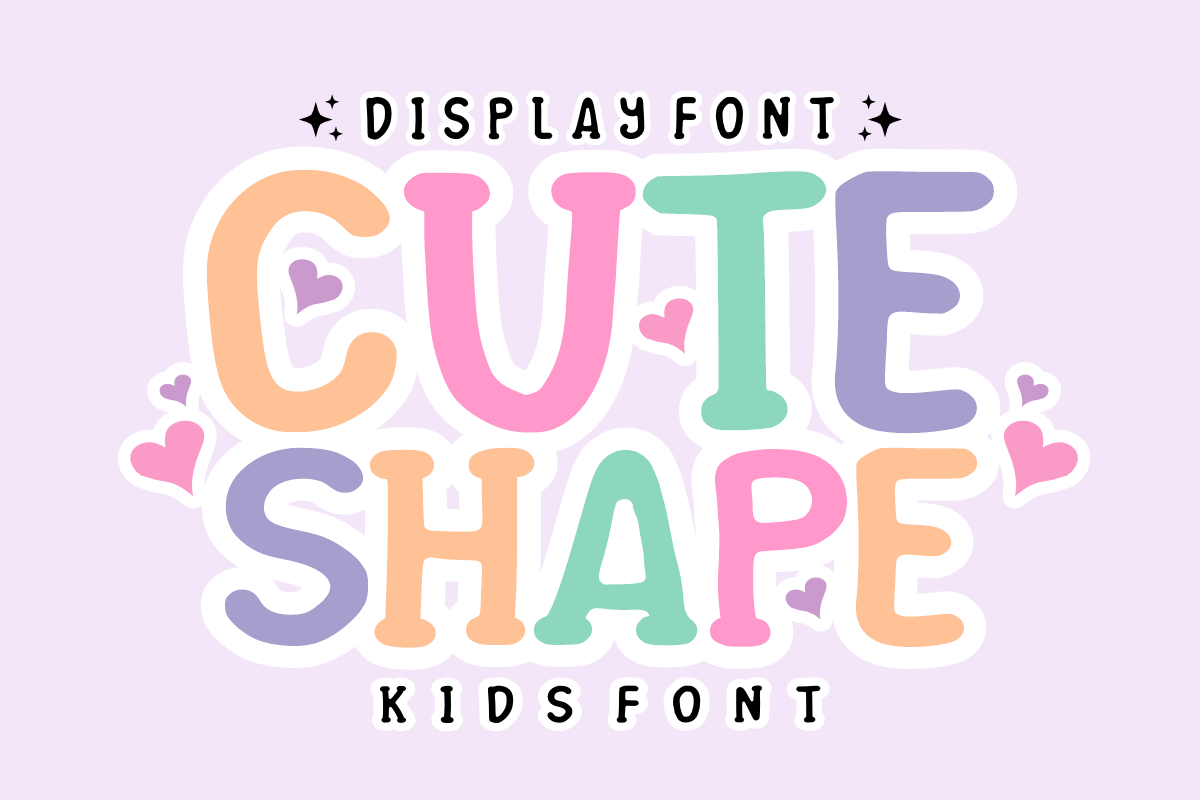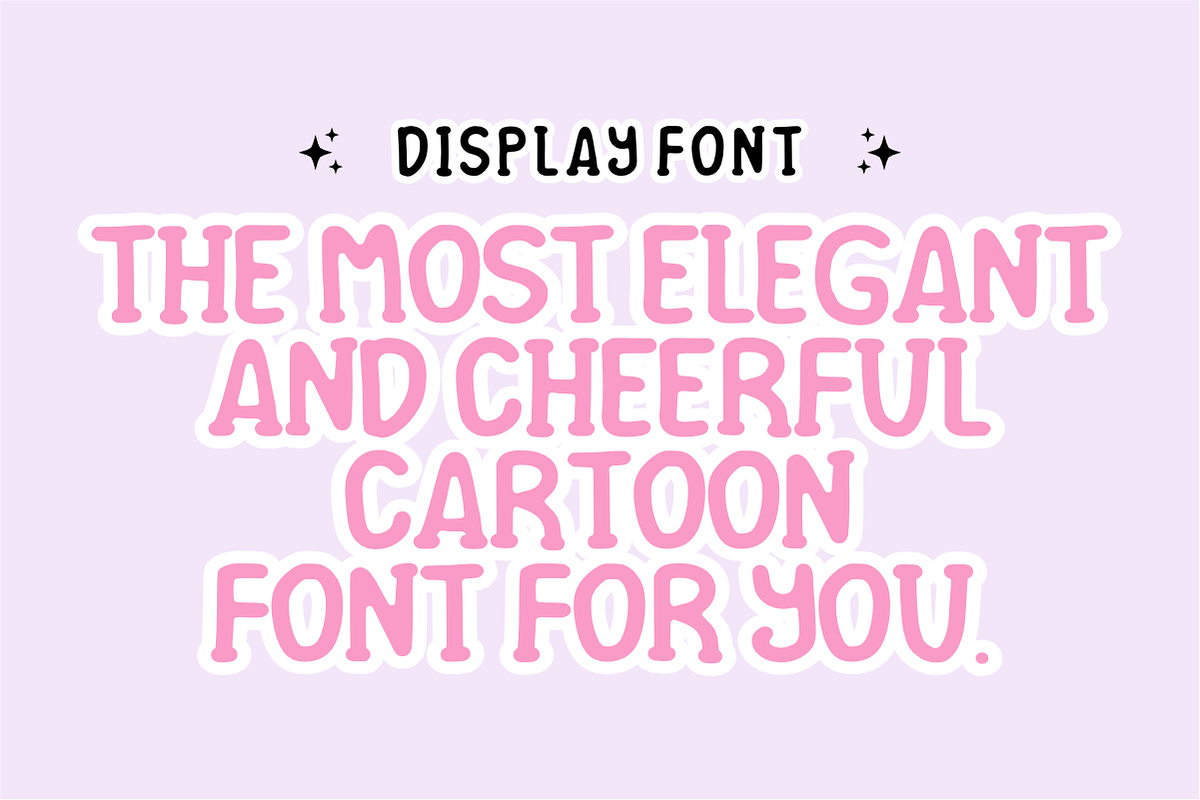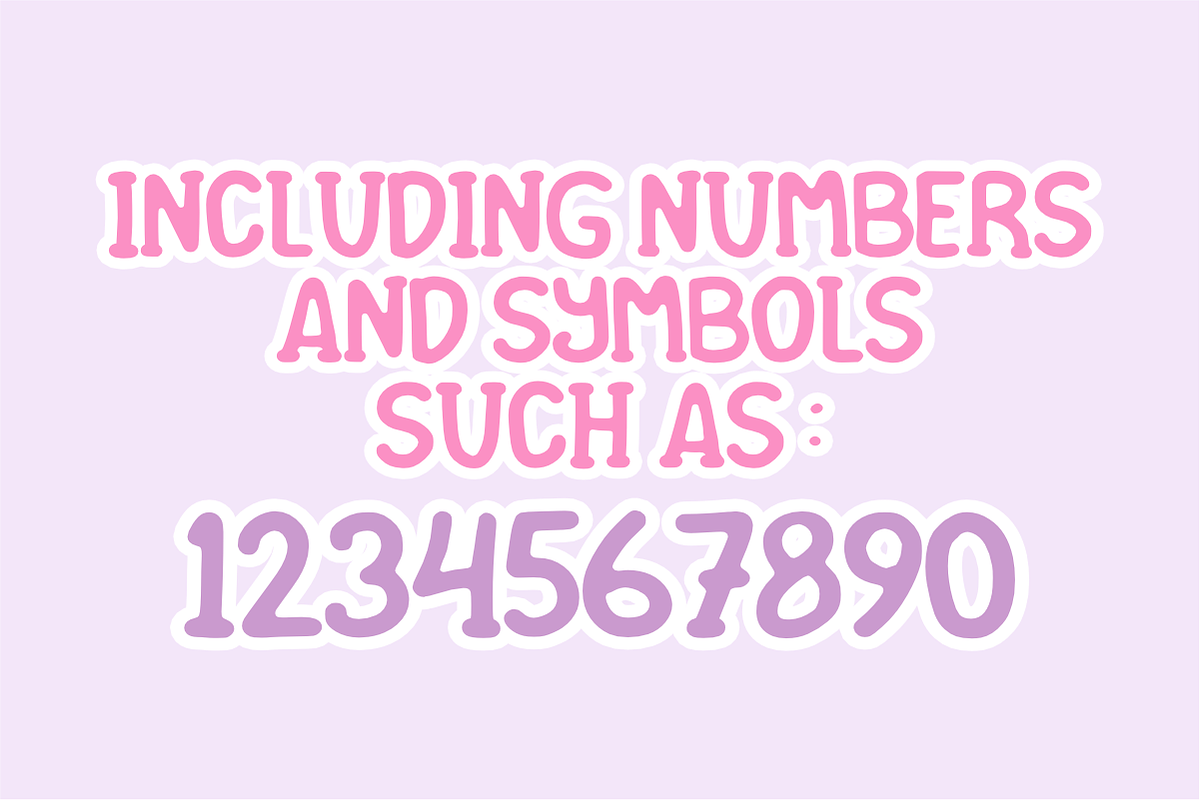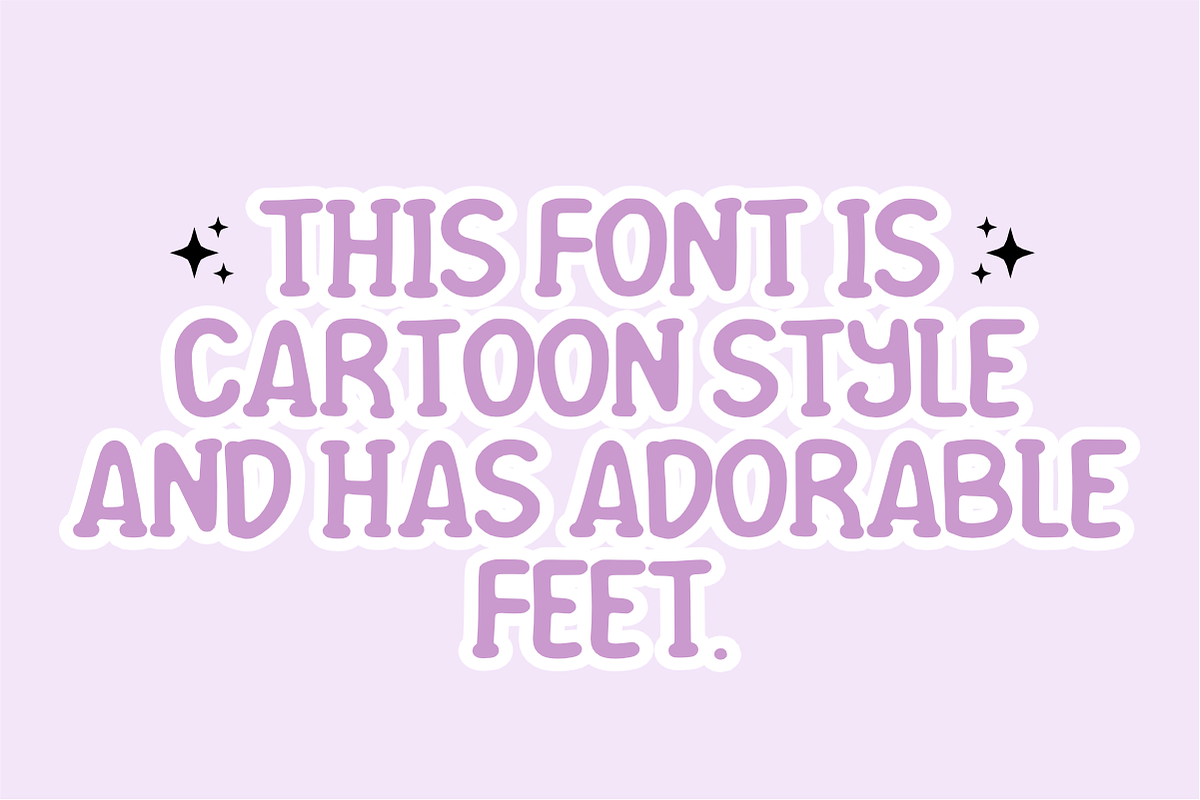
Cute Shape - Cartoon Kids Font
Cute Shape - Playful Cartoon Kids Font
Inject a burst of pure joy and whimsical charm into your creative projects with Cute Shape! True to its character as a vibrant "Kids Font," this ultra-chunky display font features soft, beautifully rounded letterforms designed to make your headlines pop with a friendly, welcoming energy.
Perfect for youth-centric branding, children's publishing, and trend-focused crafting, Cute Shape seamlessly balances a high-energy cartoon aesthetic with excellent readability. It is highly versatile, expressive, and fully optimized for flawless integration across premium print and digital layouts.
All-Caps Character Set (Chunky, bold, and happy uppercase letters)
Numbers & Basic Punctuation (Essential, simple symbols included)
Children’s Book Covers & Playful Editorial Layouts 📚
School Projects, Daycare Identity, & Educational Materials 🎒
Kids' Product Packaging, Toy Labels, & Nursery Decor 🧸
Cricut, Silhouette, & DIY Craft Sublimation Projects ✂️
Social Media Graphics, Custom Stickers, & Cute Logos 📱